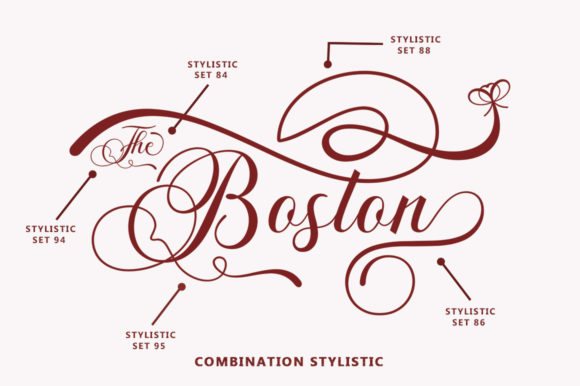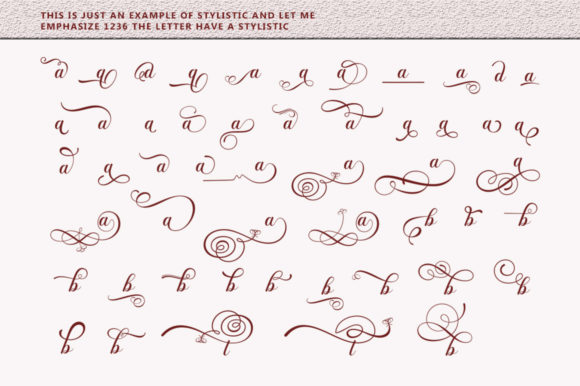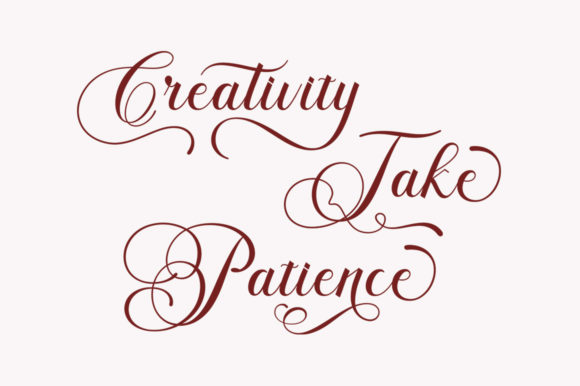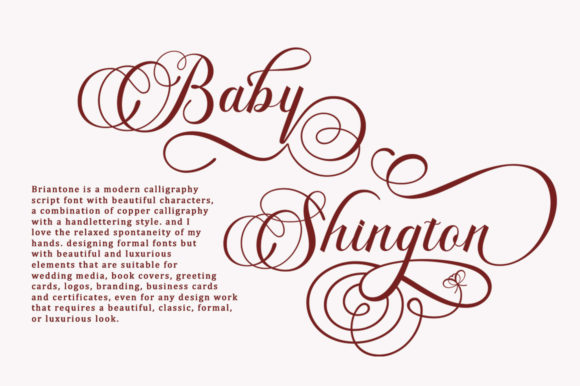
About The Briantone Font
The Briantone is a lovely and timeless handwritten font. It is the best choice for creating eye catching logos, branding and quotes. Every letter has a unique and beautiful touch, which will make your design come alive!This font is PUA encoded which means you can access all of the glyphs and swashes with ease!